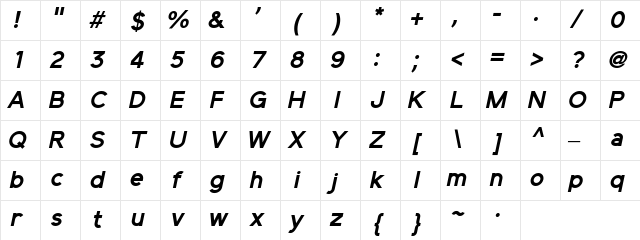
Elliot Sans BoldItalic
Elliot Sans Family
Elliot Sans BoldItalic
Design Context for Elliot Sans
Elliot Sans is a composed and adaptable typeface that performs quietly and consistently across a wide range of design contexts. The slanted form adds forward momentum and visual energy. Its bold stroke weight gives it real presence on the page.
Pro Tip: Use Elliot Sans for emphasis, pull quotes, and subheadings where its slanted energy can add rhythm to the layout.